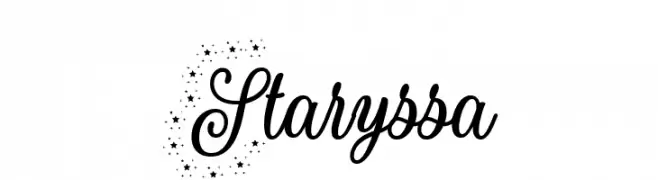
A delicate, flowing script font with elegant, elongated letterforms.
A festive, sparkling script font ideal for holiday designs.
A flowing, elegant script font with smooth, cursive strokes.
A cursive, handwritten-style font with a flowing and elegant appearance.
A decorative script font with star embellishments and flowing cursive letters.